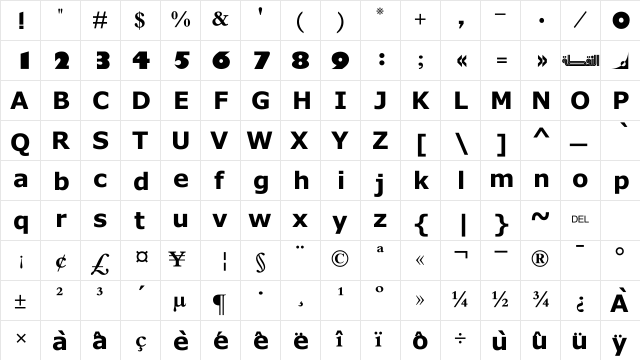
Motken noqta ii Regular
Design Context for Motken noqta ii Typeface
Motken noqta ii is a composed and adaptable typeface that performs quietly and consistently across a wide range of design contexts.